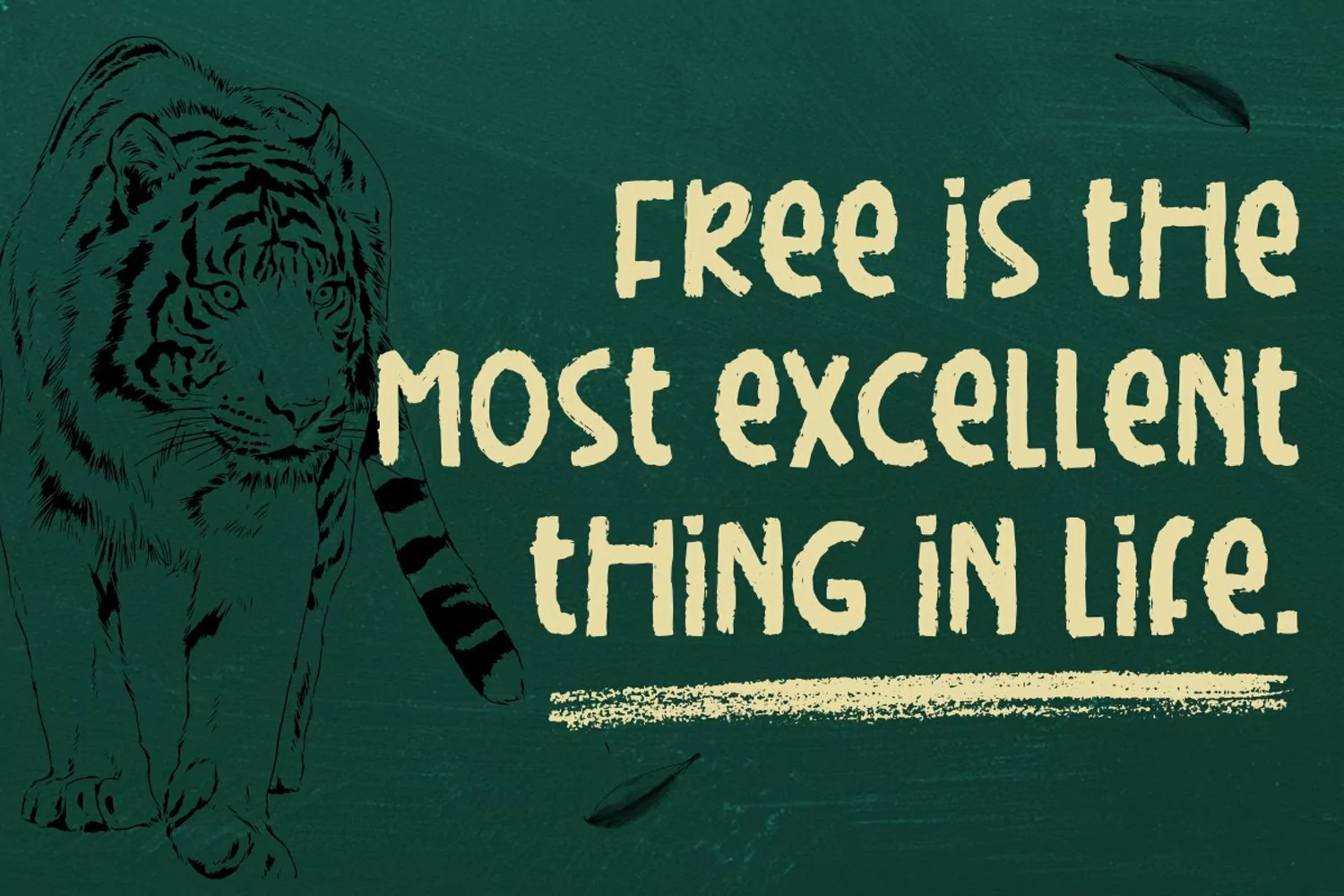
Introducing " Chalk Zones "
Chalk Zones Is a Display Handwritten Font with Chalk Textures
You Can Mix And Match for Your Awesome Project
This fonts is ideal for crafting, branding and decorate your any project. This fonts are perfect for wedding invitation or your blog. Also with their help, you can create a logo or beautiful frame for your home. Or just use for your business, book covers, stationery, marketing, magazines and more.